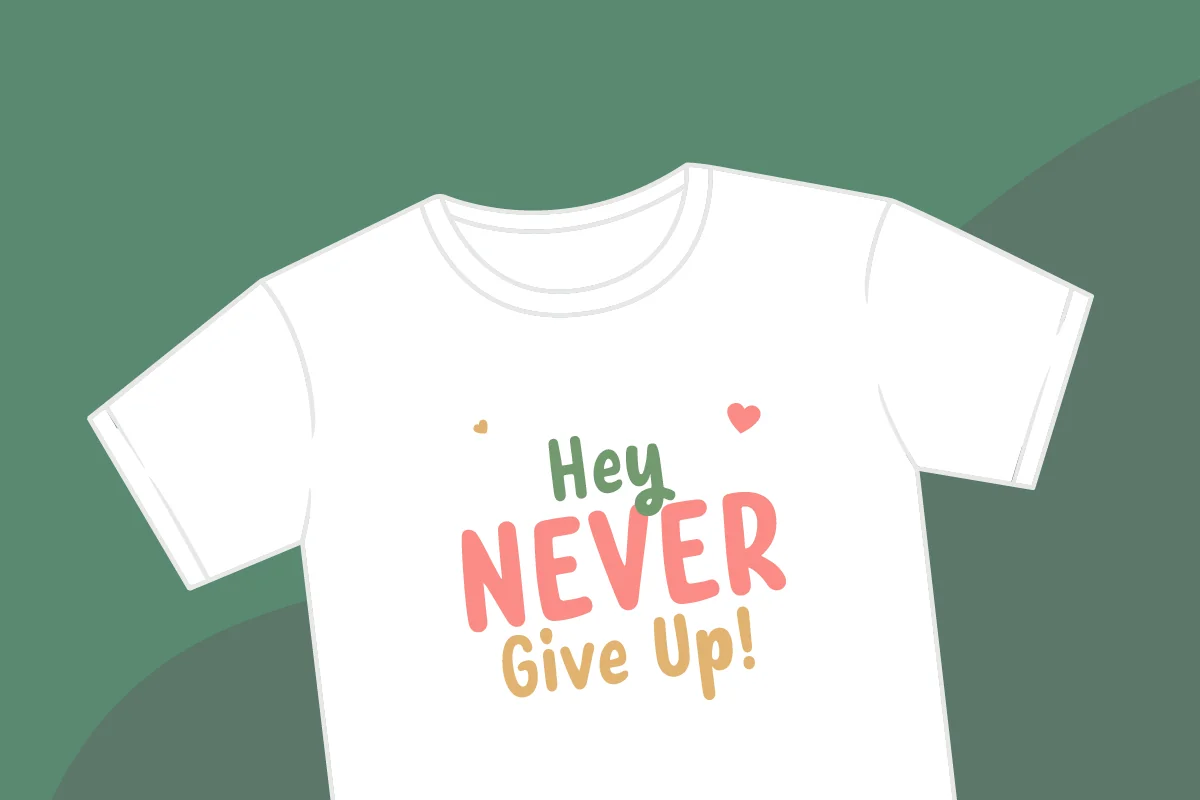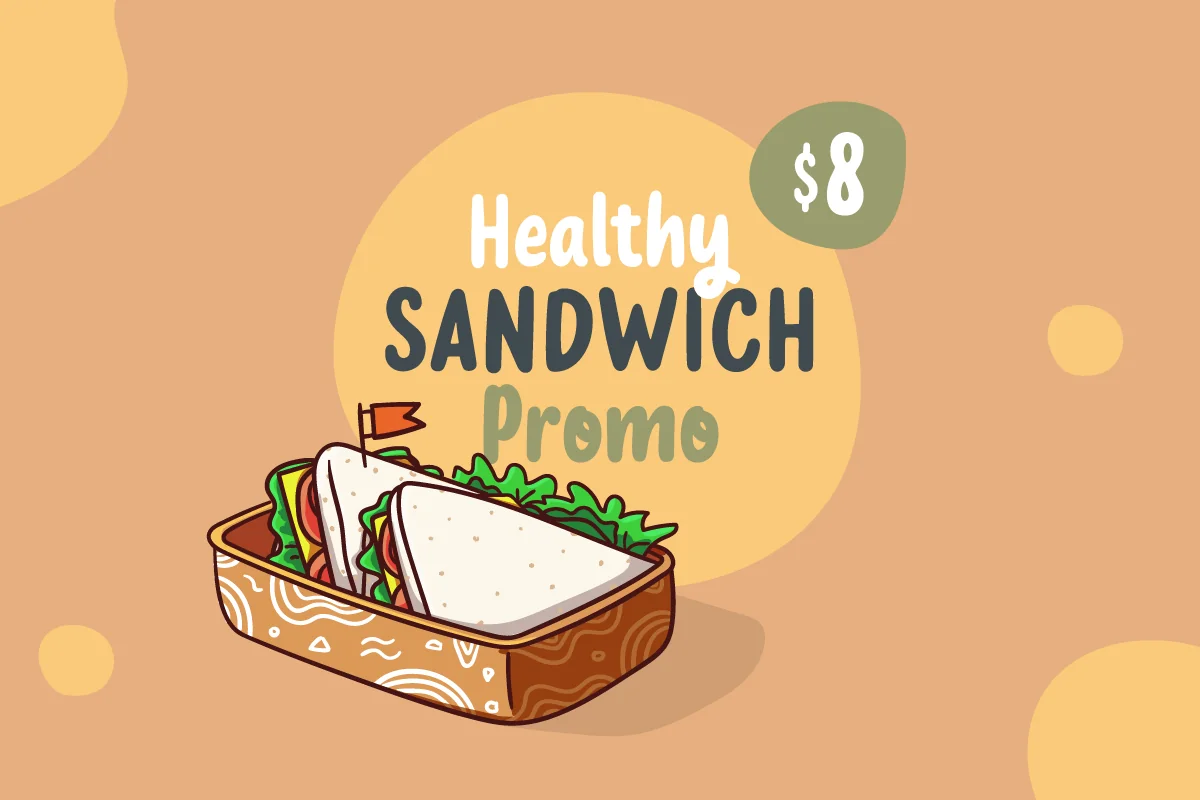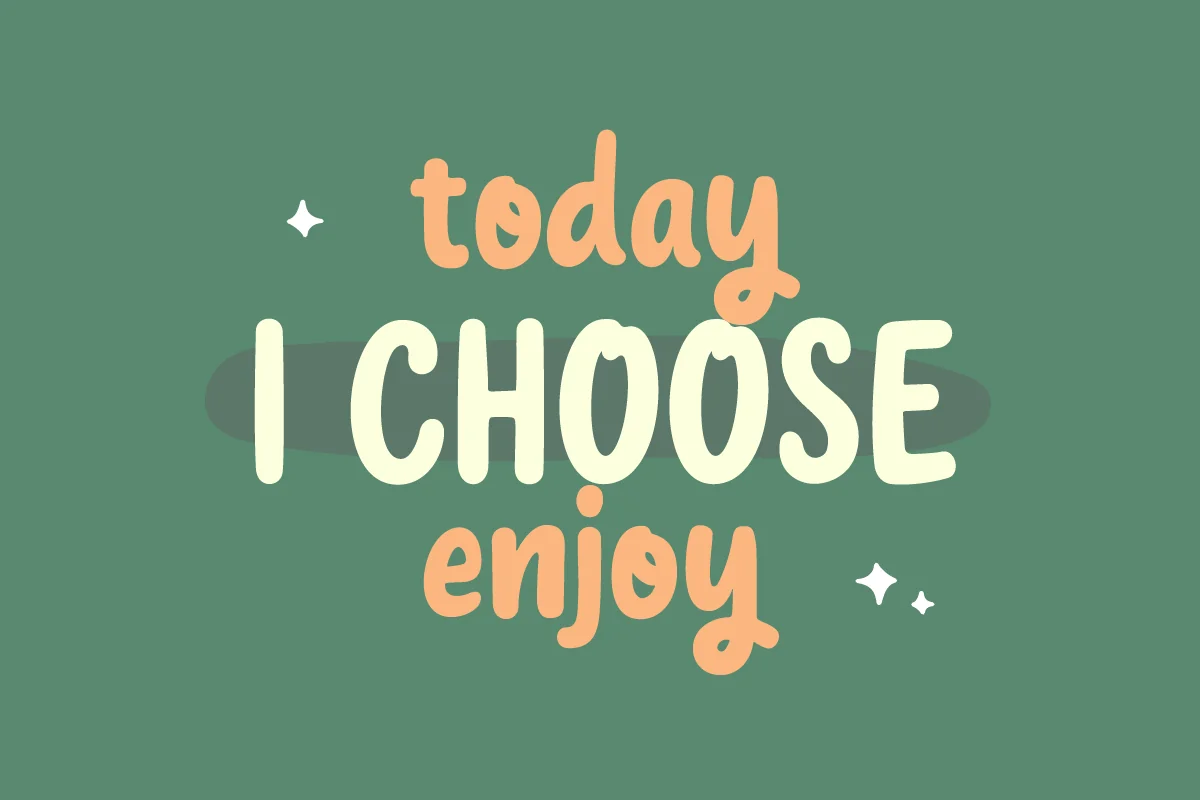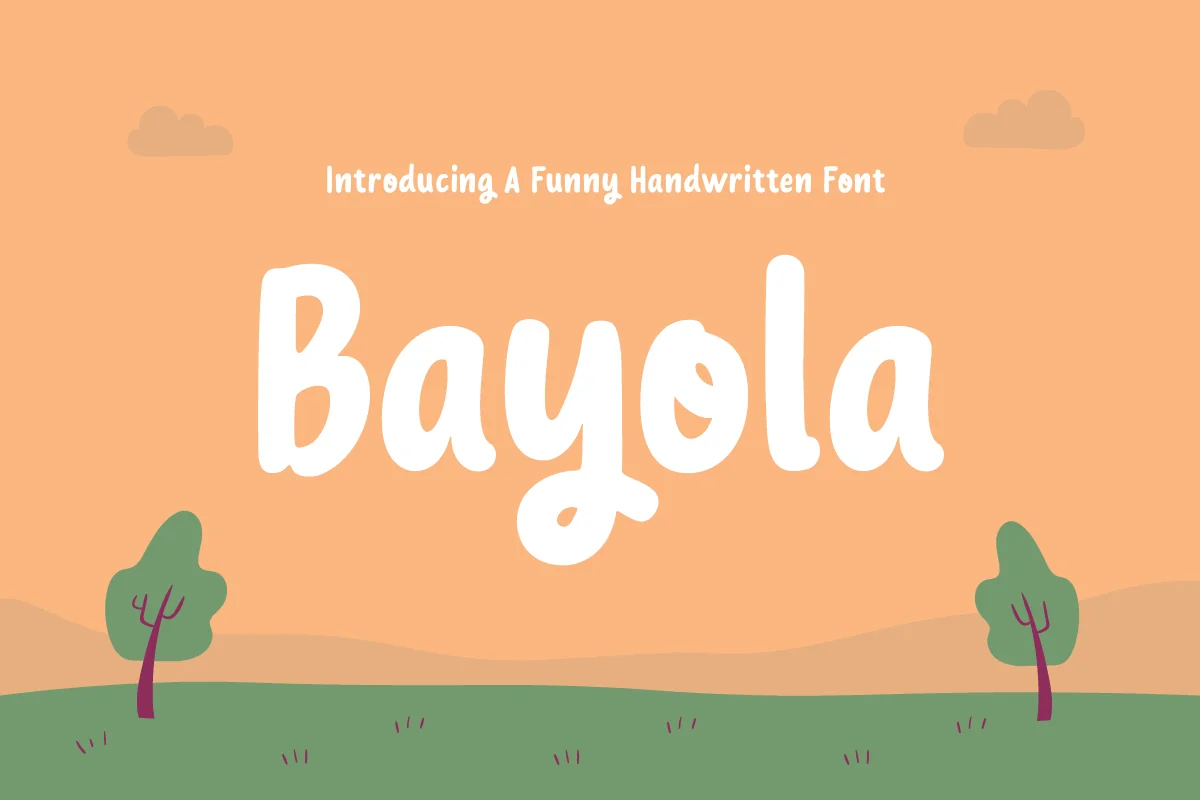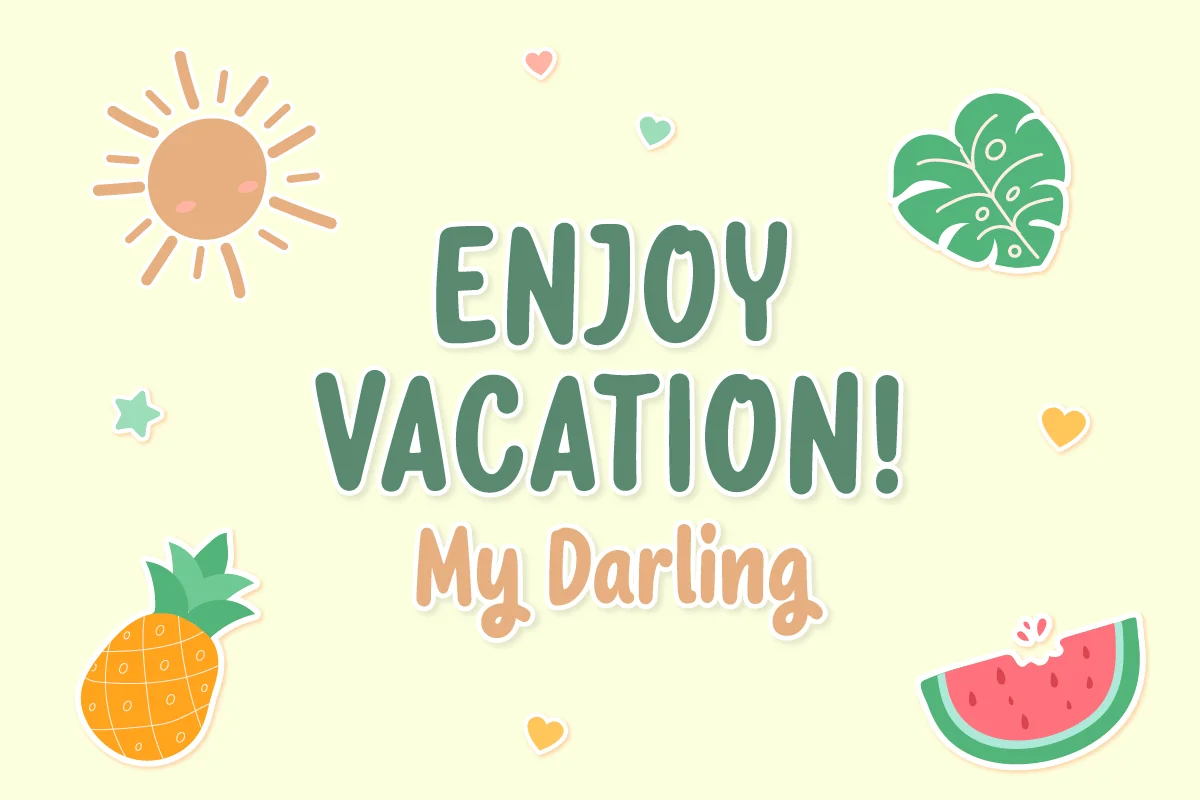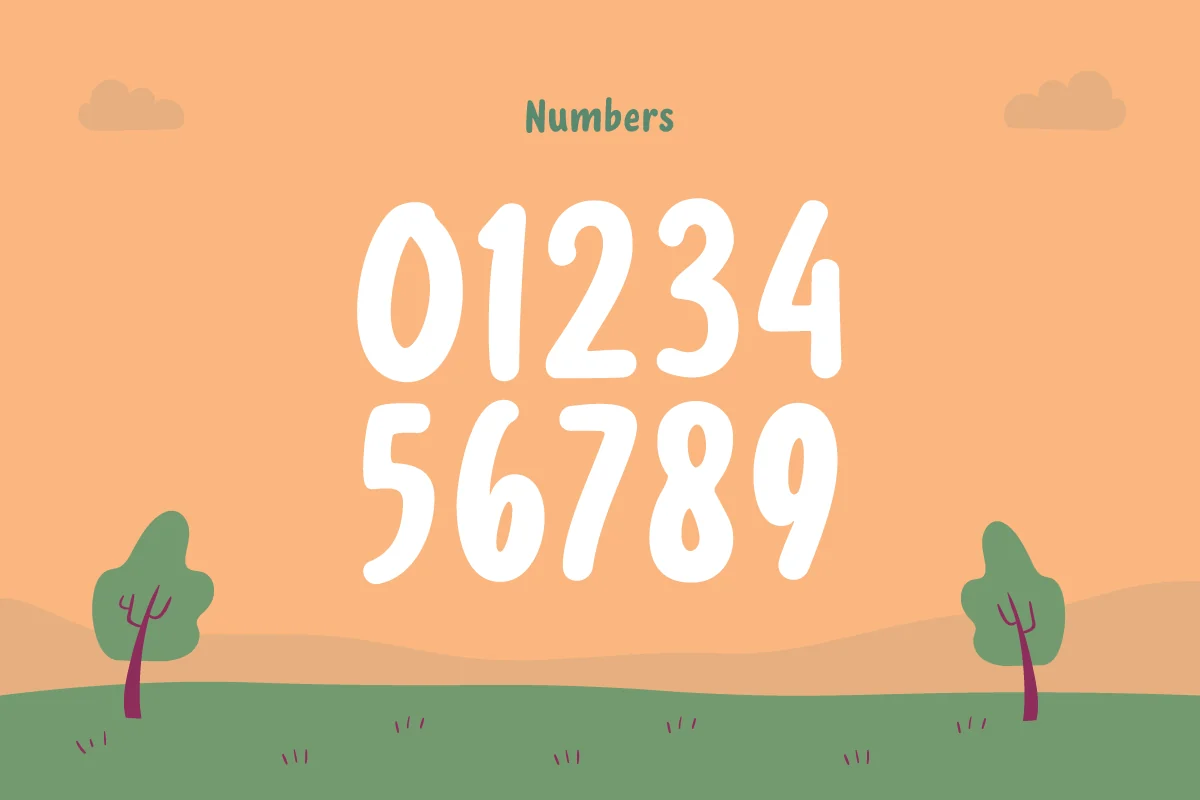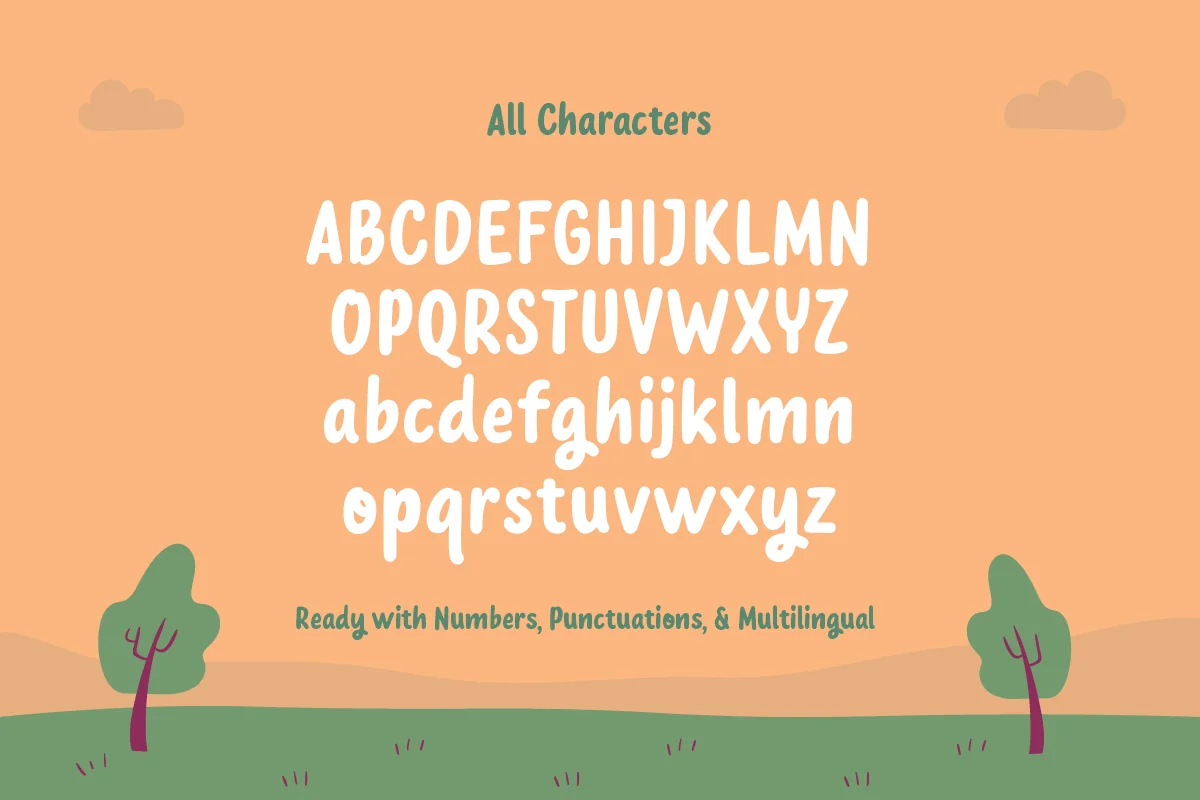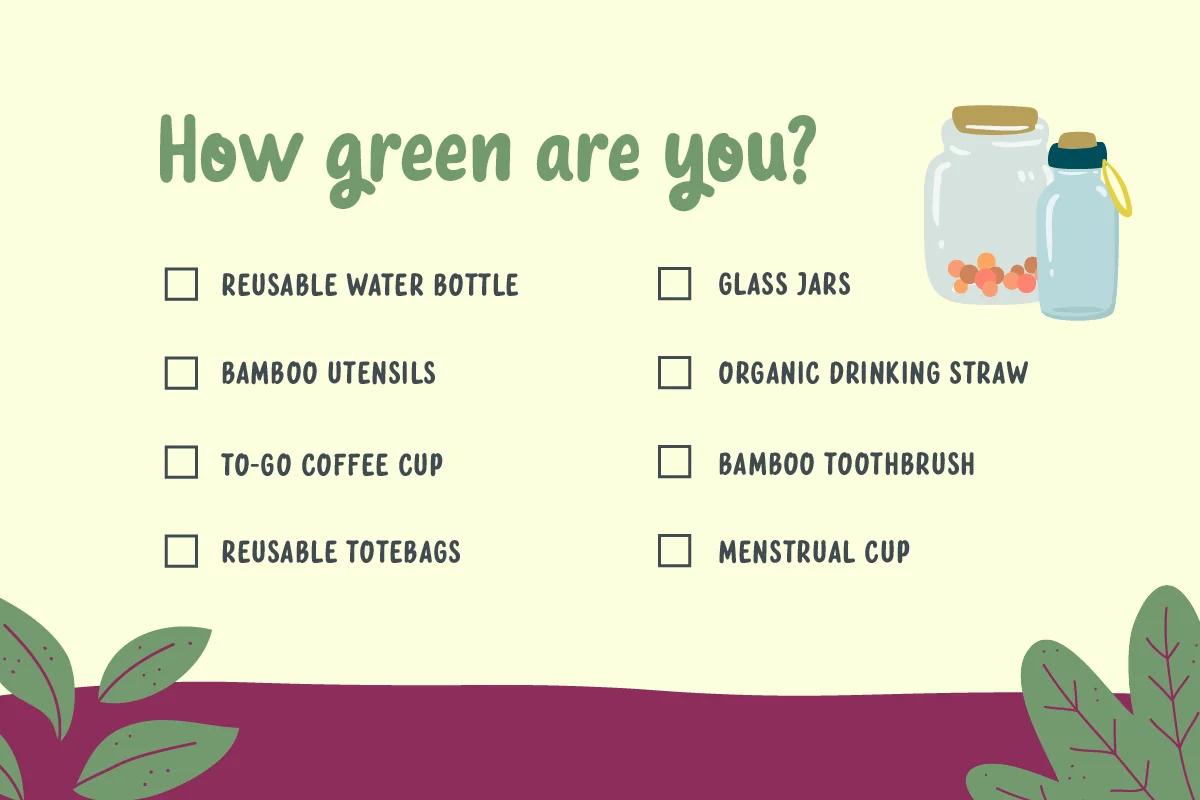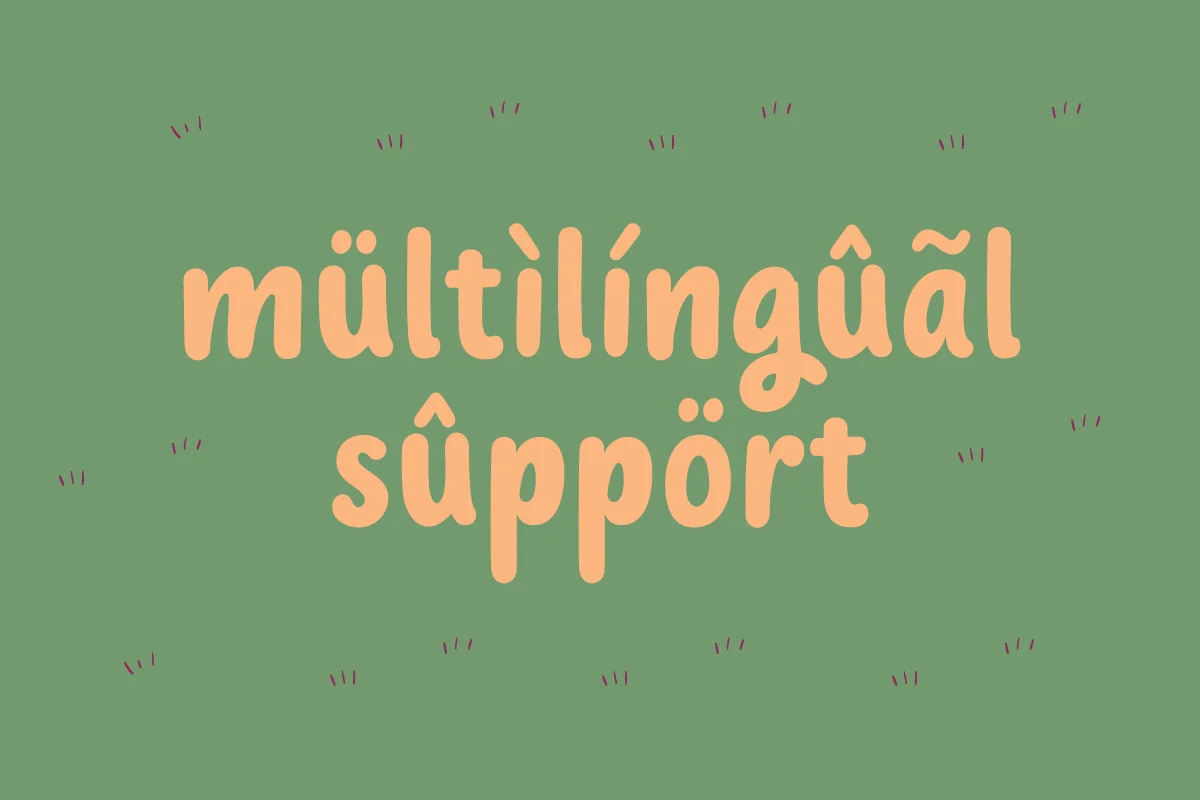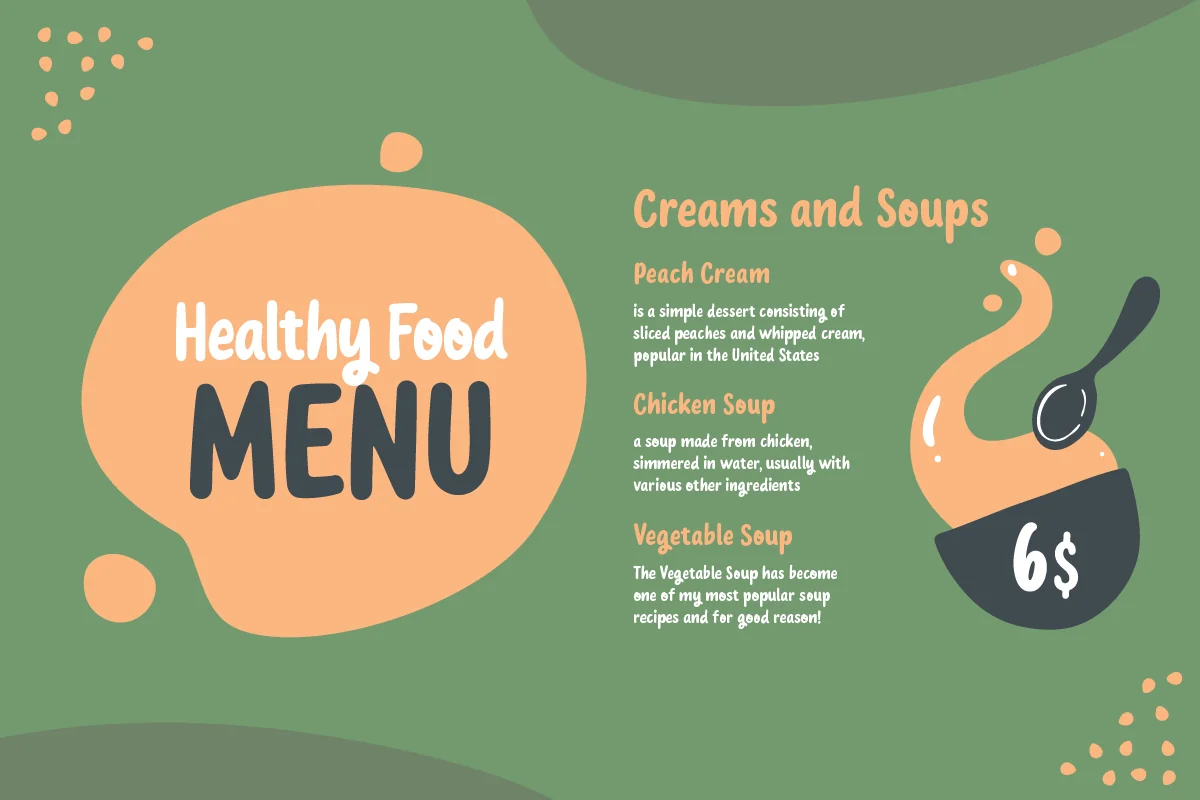
Bayola – Funny and Cute Handwritten Font
Do you want to find a good font for Branding, Mobile Apps, Flyer, Magazine, Greeting cards, Comic, etc? Bayola font is the best choice. Bayola font is Our Fun and Cute Handwritten font, are perfects for Titles, Headline, Subtitles and many more you want. It has ready with cute and unique style with rounded in each corner. Bayola font is a typeface are ideal for display, game title, text, print, branding, signage, and and also for user interfaces, mobile devices, especially web design creation, with a set of optimal characters for your design in any layout.